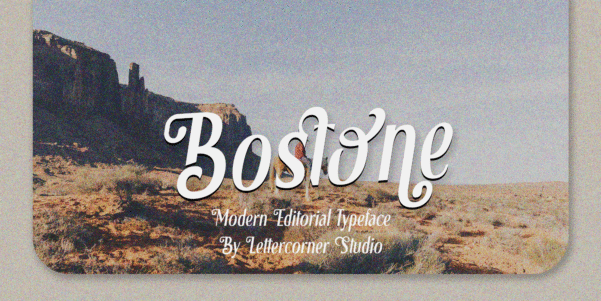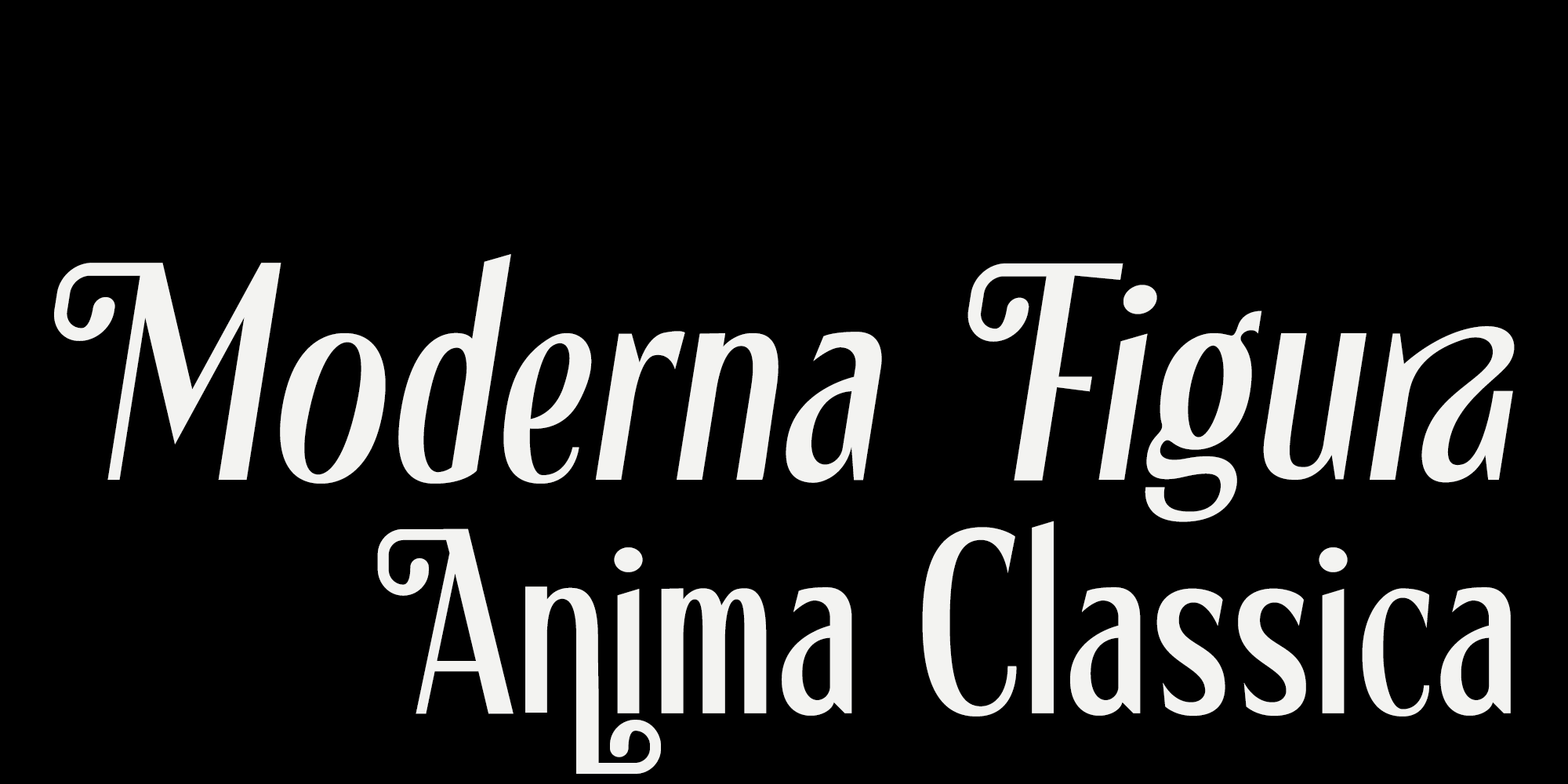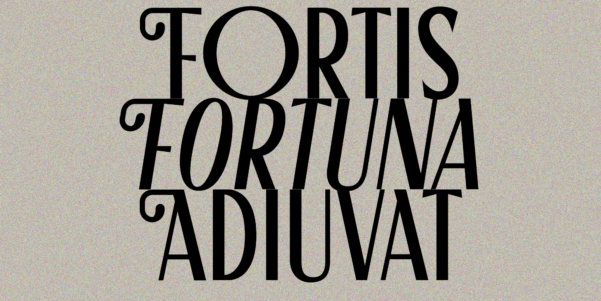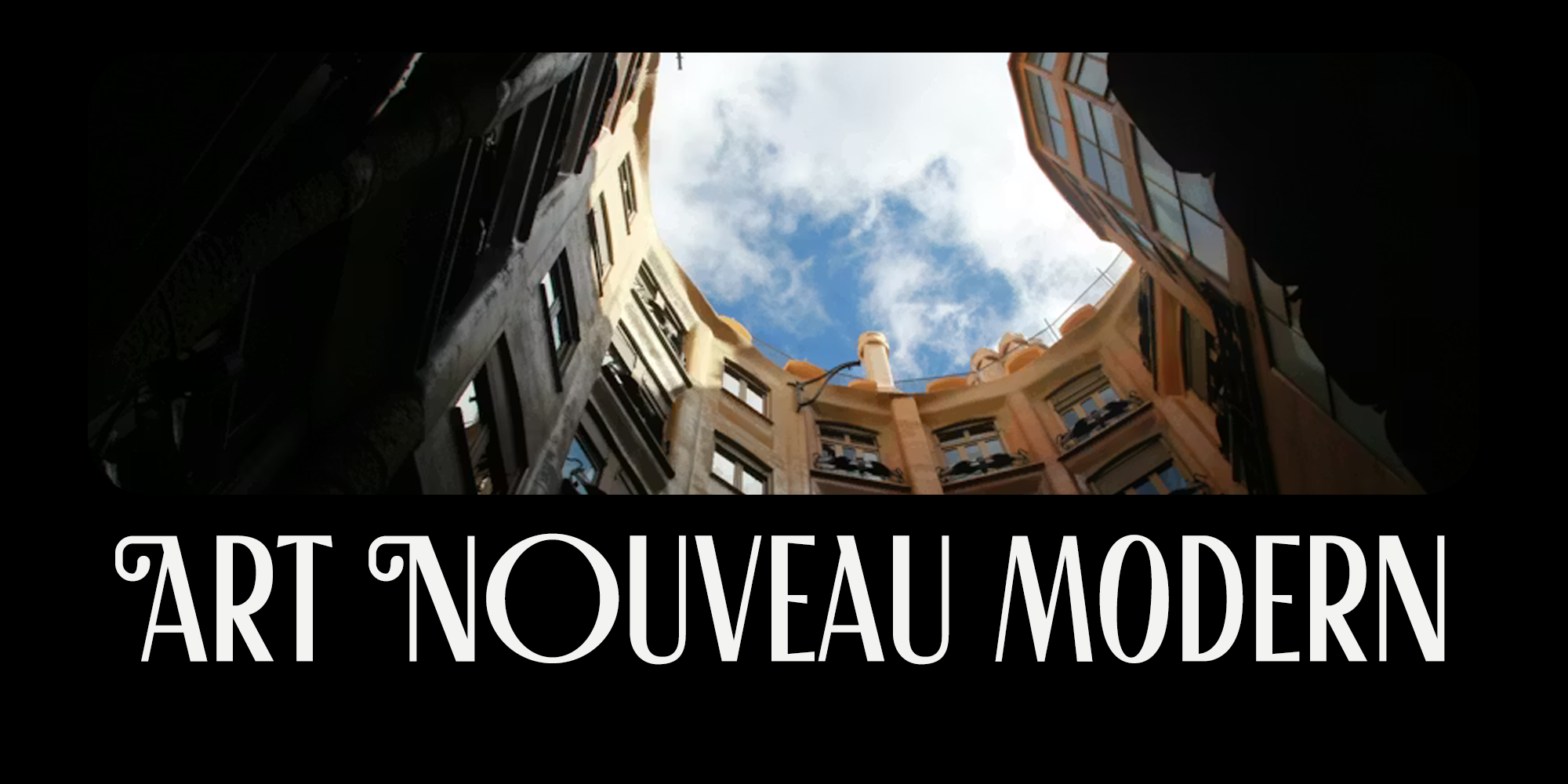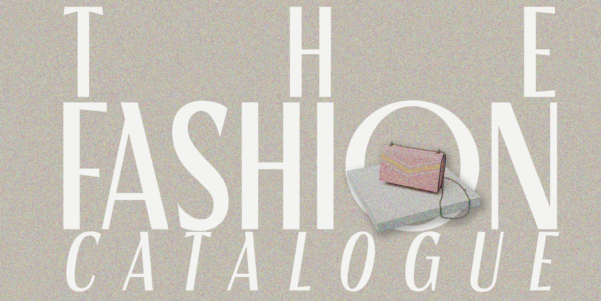
Bostone
Bostone — Bold Heritage Display Font
Inspired by Boston, one of America’s oldest cities, where centuries-old brick buildings stand shoulder to shoulder with modern skylines, and historic cobblestone streets carry the weight of stories that shaped a nation. Founded in 1834, the city has long been a hub of commerce and ambition, and that same spirit of resilience and tradition runs through every letterform.
Bostone is a display font with a strong character and a confident presence. Built on letterforms that are bold, structured, and full of personality, Bostone carries the weight of old-world craftsmanship while still feeling sharp and contemporary — like a historic façade rebuilt with modern materials. Every letter feels solid, deliberate, and full of conviction.
With 305 glyphs including full Latin character support, Bostone is designed for large scales — headlines, covers, branding, and any situation where typography needs to command attention before the words are even read. Its bold structure brings a sense of authority and permanence, while subtle details keep the design feeling crafted rather than mechanical.
Available in 2 styles:
• Regular — a bold, upright form with strong presence and classic confidence
• Italic — a slanted version that adds energy and motion, like a city that never stands still
Perfect for branding, posters, logos, apparel, and editorial headlines that demand a visual presence that lingers — as enduring as a city built on history, and as bold as its skyline.